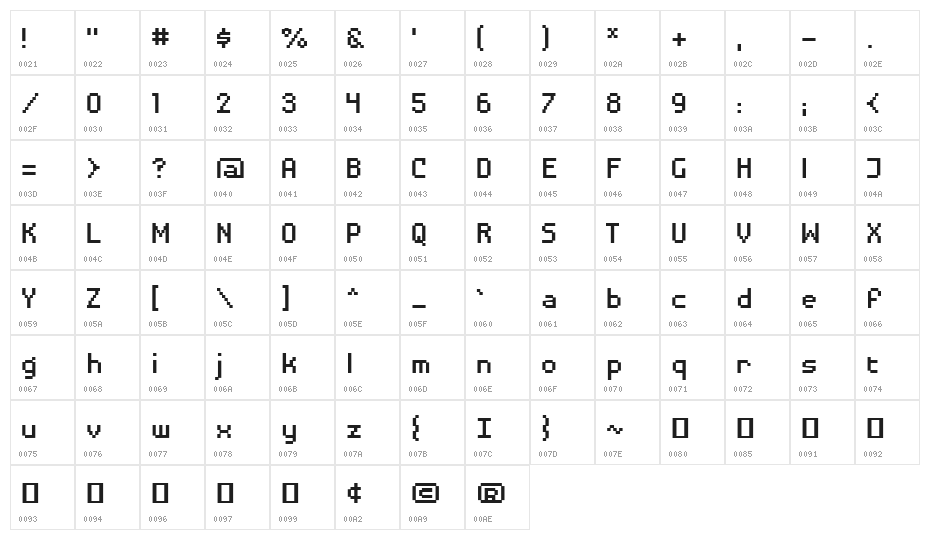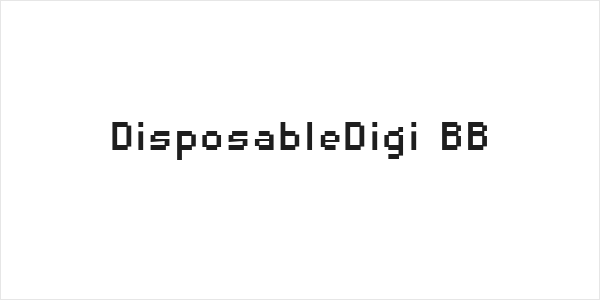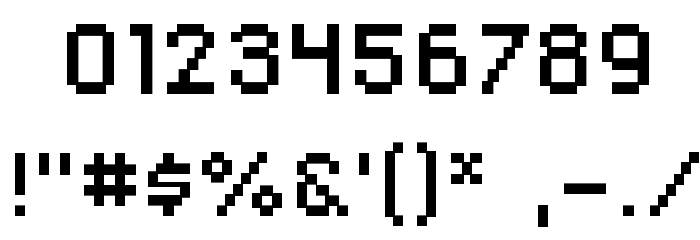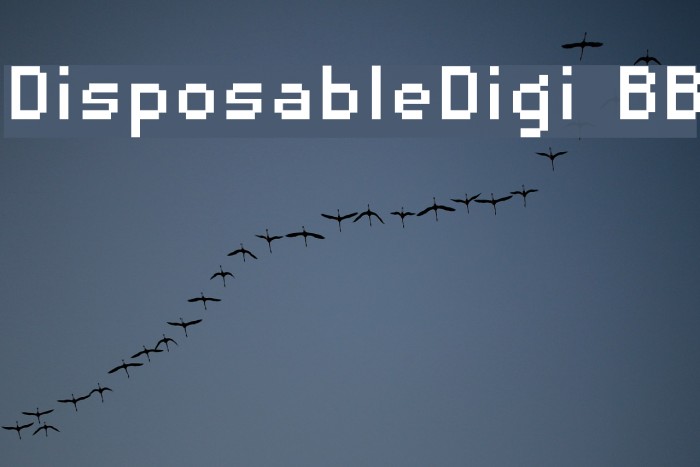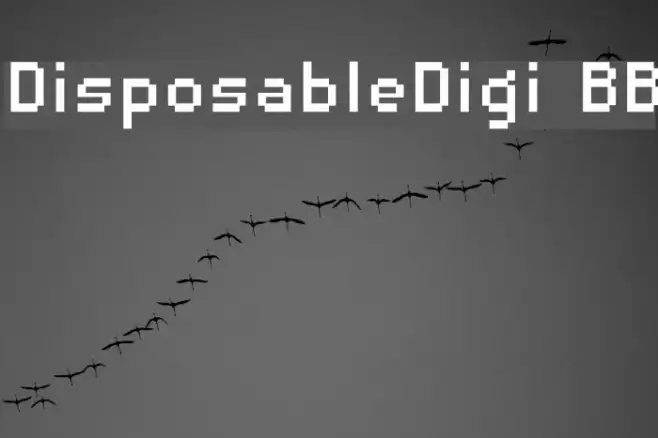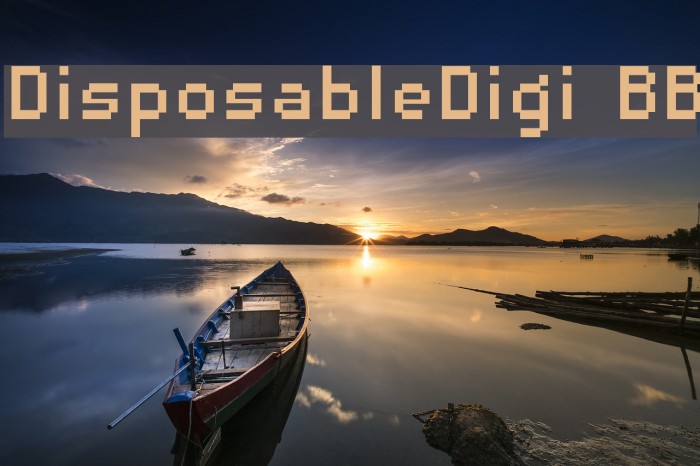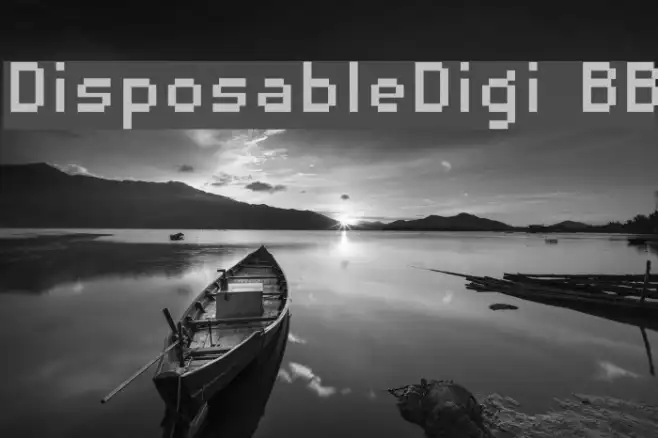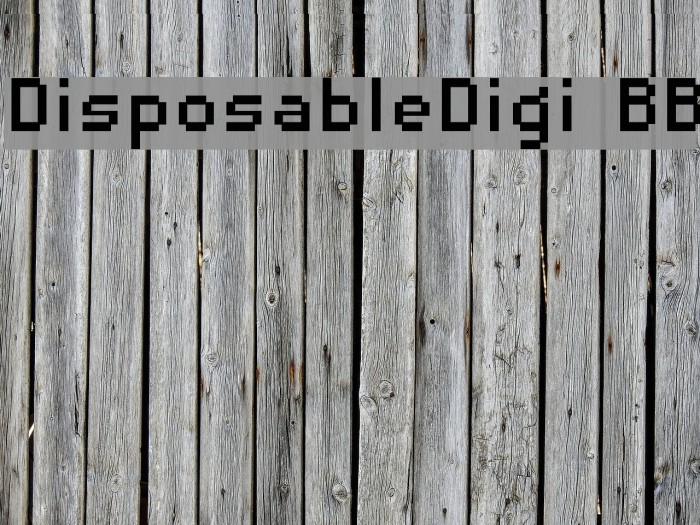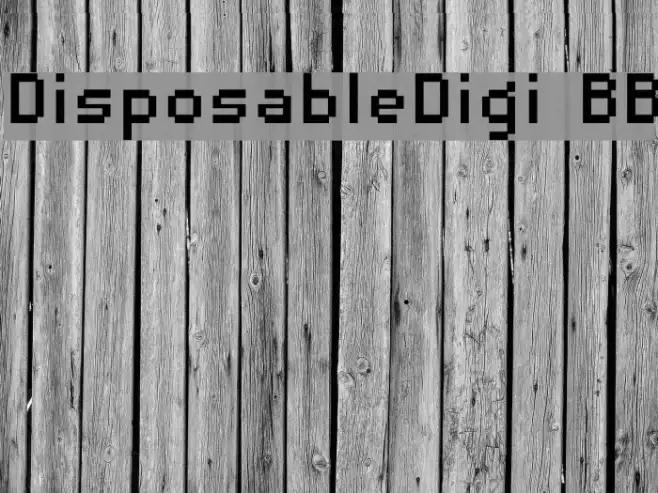
DisposableDigi BB Font
DisposableDigi BB Description
This font features a pixelated, digital aesthetic reminiscent of early computer displays and video games. Each character is composed of blocky, square shapes that give it a distinctly retro and technological feel. The uppercase and lowercase letters maintain a consistent height, contributing to a uniform appearance. Numbers and special characters are designed with the same pixelated style, ensuring a cohesive look across all glyphs. The font's simplicity and geometric form make it highly legible, even at smaller sizes, while its unique style adds a touch of nostalgia and modernity to any design.
| Use Case | Headlines, Logos, Digital displays |
| Proposed Projects | Ideal for video game design, tech-themed posters, digital art projects, and retro-style branding. |